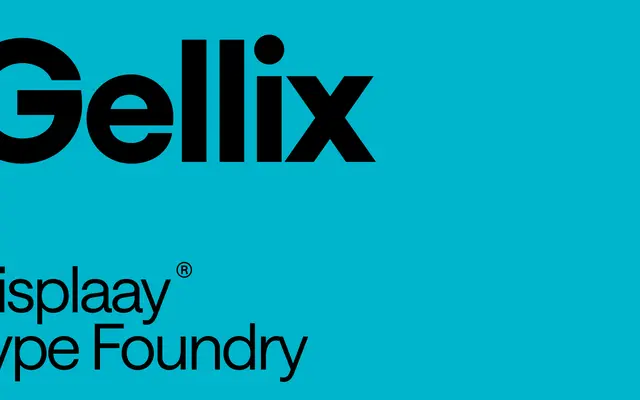
A geometric sans-serif in 8 weights with matching italics, built around straight terminals and smooth stroke connections, available as a variable font with weight and slant axes.
Gellix offers 16 styles across 8 weights from Thin to Black, each paired with an italic, all drawn from a geometric framework that prioritises straight terminals and fluid joins rather than optical correction. The variable font supports two axes, weight and slant, giving designers continuous control across the range. It sits comfortably in editorial, branding and interface work where clean geometry is preferred over humanist warmth.
The foundry describes Gellix as built on pure geometry with straight terminals and smooth connections, placing it squarely in the geometric sans-serif tradition.